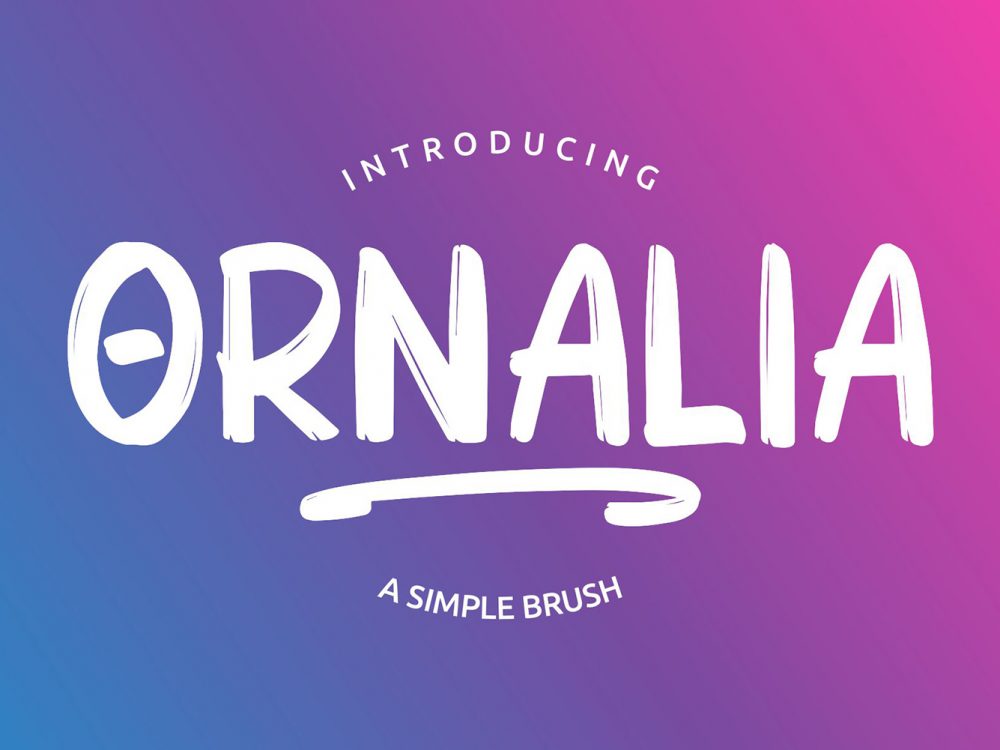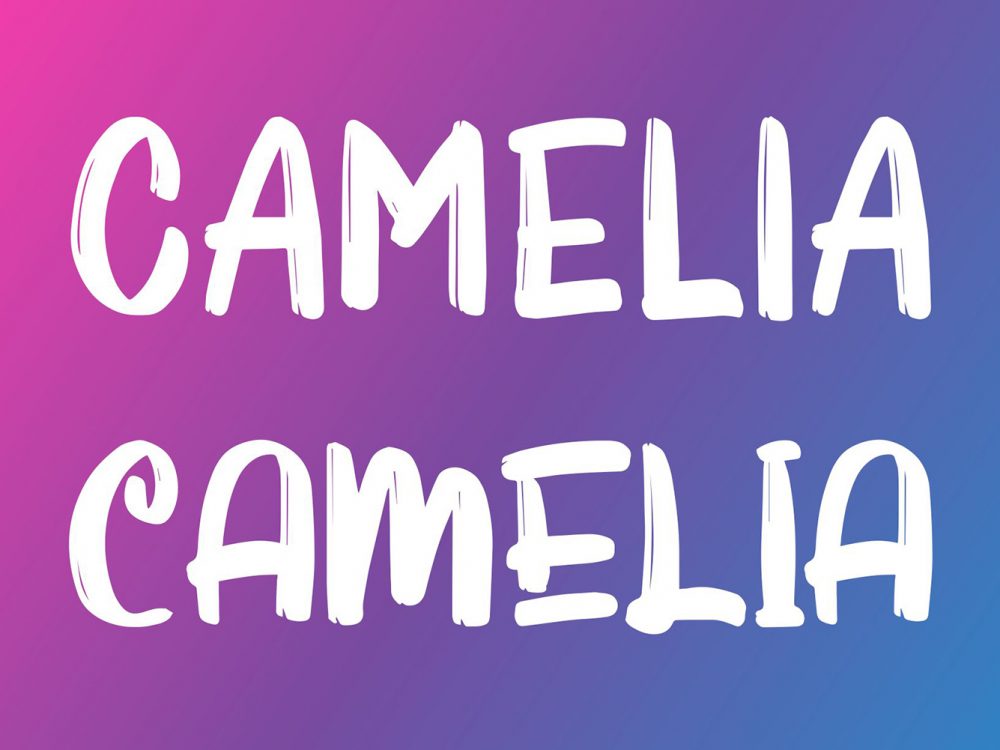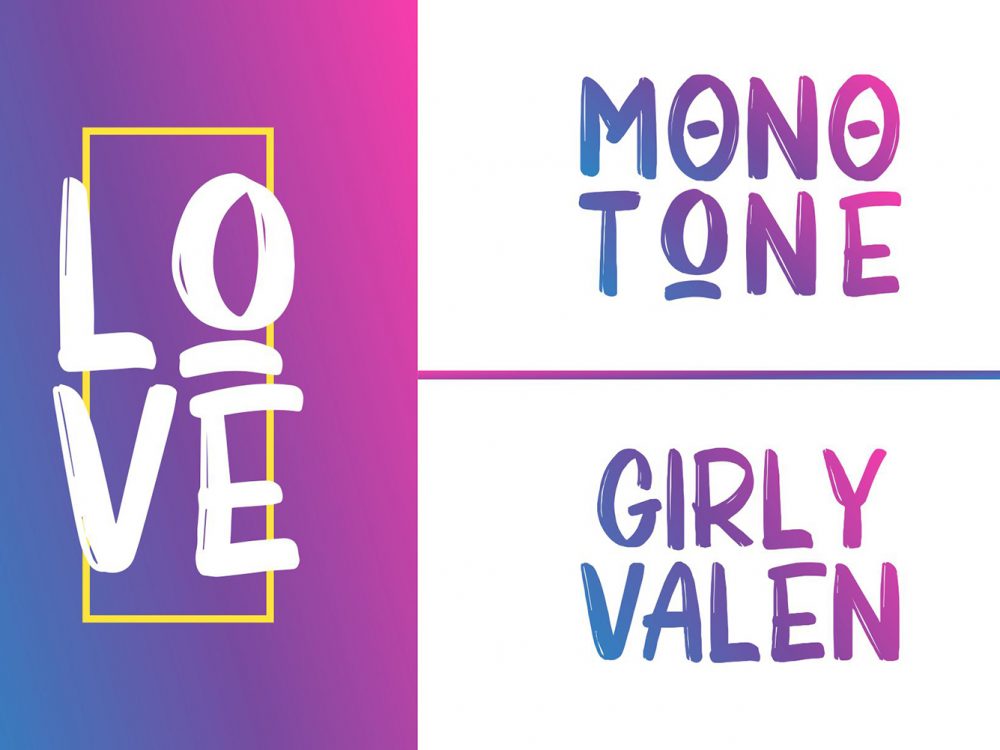
Ornalia Free Font
Ornalia Free Font is an interesting modern font that simulates writing with a brush and will help you create unique design projects. You can use this font to create memorable posters, stylish wedding invitations, cards, branding, flyers, and more. If you like it don’t forget to check out the full version.